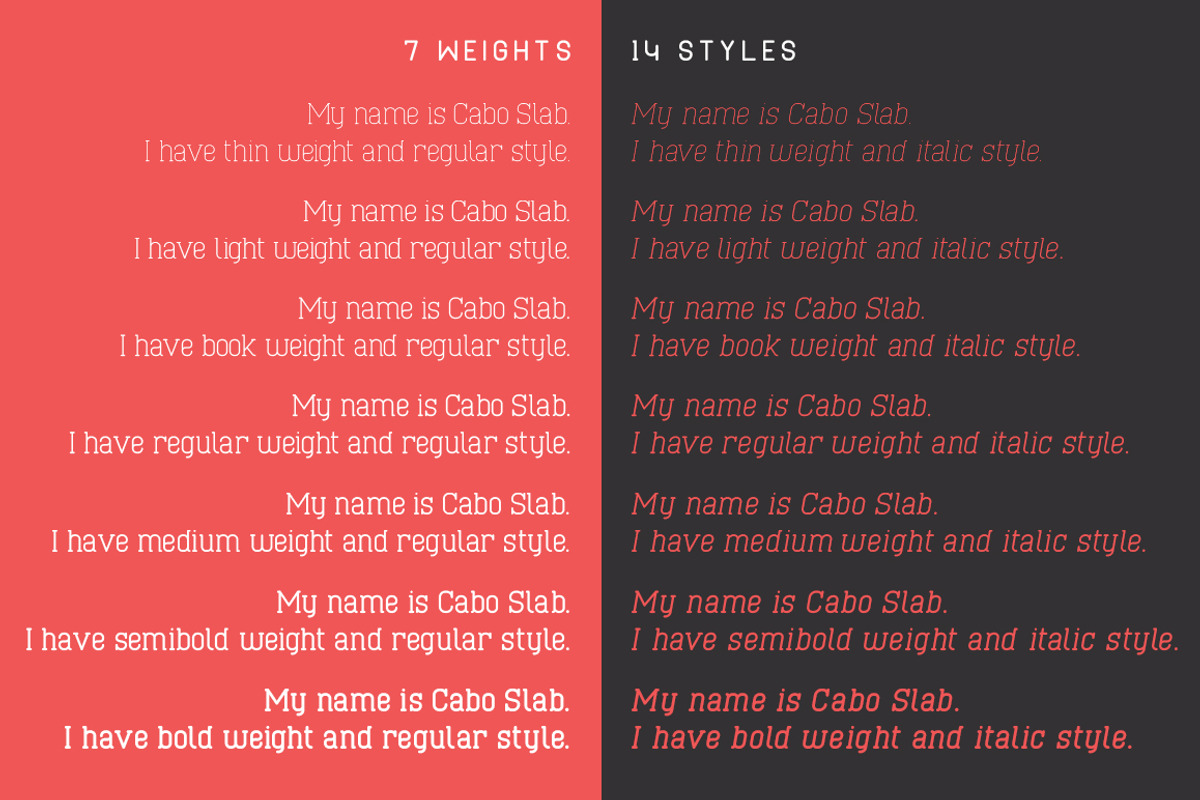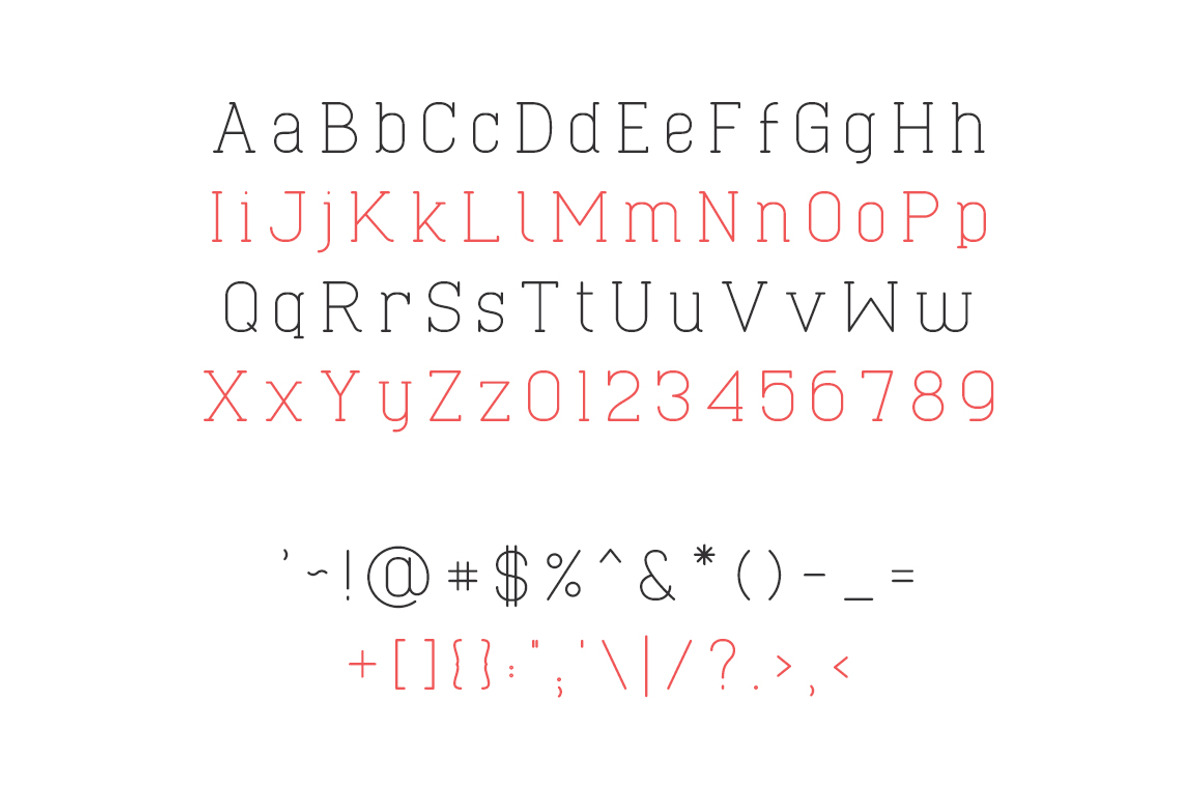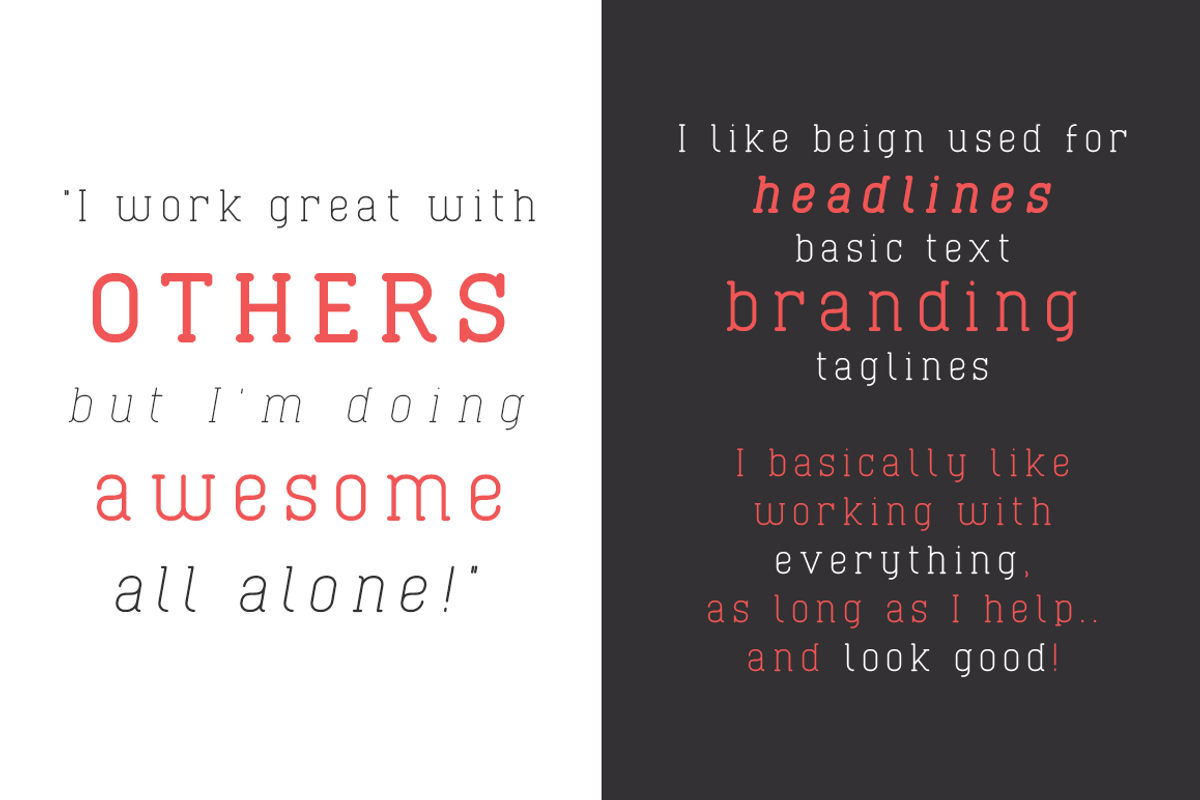
Cabo Slab Font Family
Cabo Slab Font Family by Bogdan Casota is a font selected for branding, posters, packaging, typography.
Why Cabo Slab Font Family is worth a look
Cabo Slab Font Family by Bogdan Casota fits naturally into Branding, posters, packaging, typography.